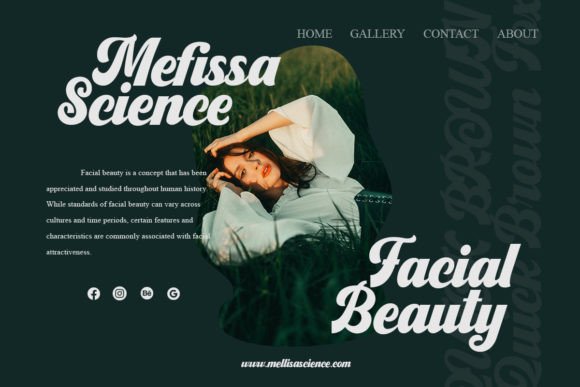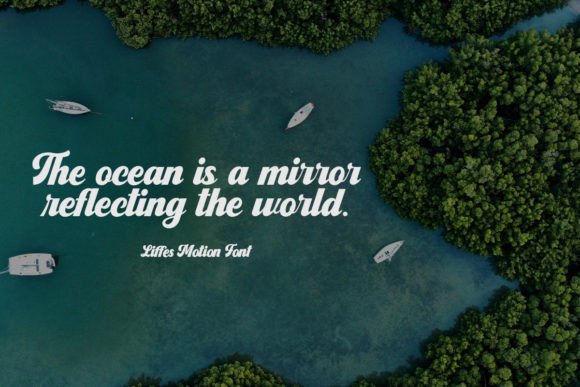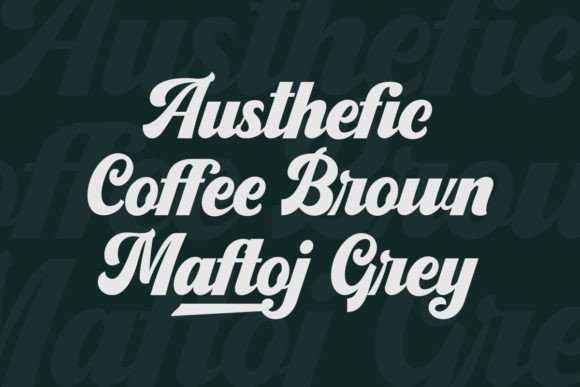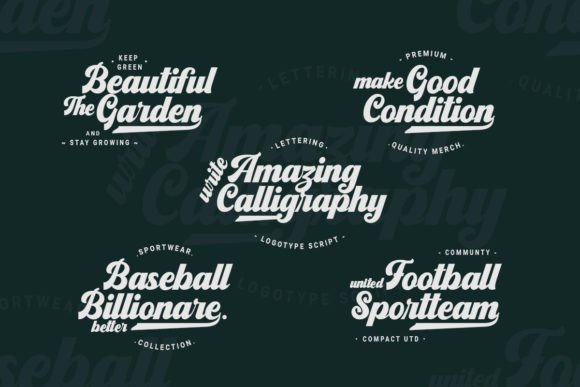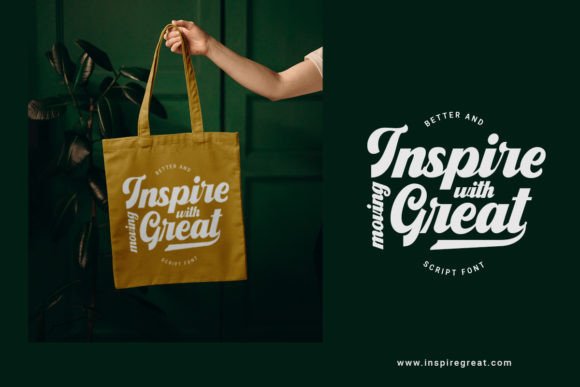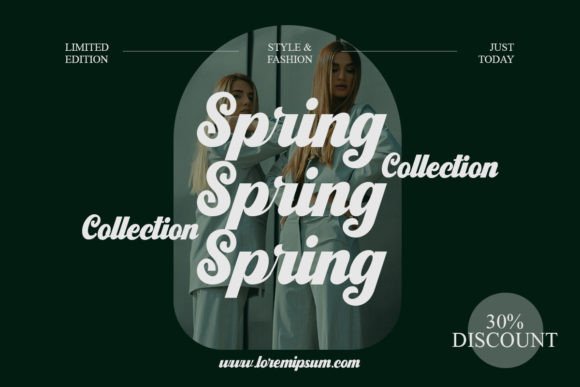
Introduction to Liffes Motion Font
Liffes Motion is a bold and stylish script handwritten font that radiates energy and elegance.
Its flowing, handcrafted strokes create a sense of dynamic motion, perfect for designs that demand attention This font is an ideal choice for logos, branding, and any project where you want to infuse a touch of sophistication and personality into the text.
Key Features of Liffes Motion Font
Why Choose Liffes Motion Font?
Liffes Motion Font offers exceptional quality and versatility, making it a valuable addition to your design toolkit. Whether you’re creating for personal projects or commercial use, Liffes Motion Font delivers professional results.